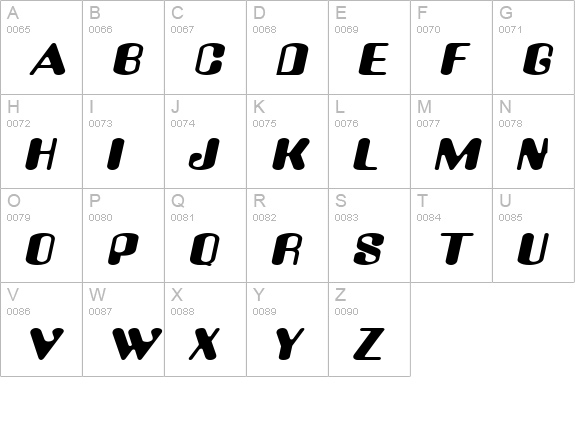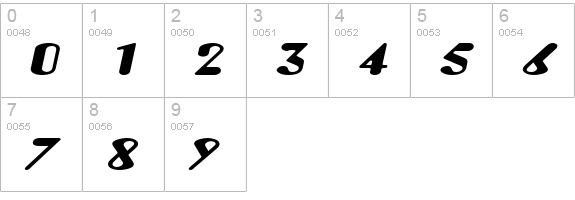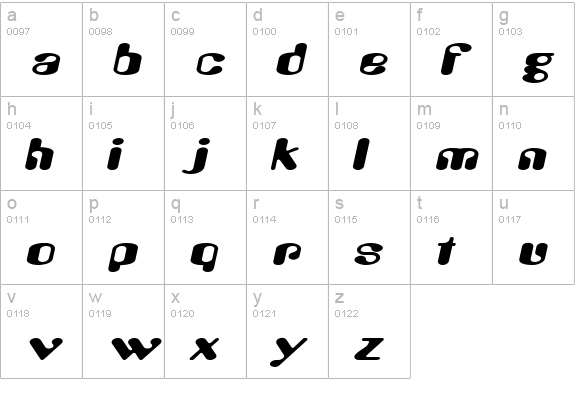
Amos Extended BoldItalic is a distinctive, extended-width variant in the Amos typeface family \xE2\x80\x94 well suited to design and typography projects.
Amos Extended BoldItalic font is a versatile and modern typeface that exudes elegance and sophistication. Its bold and italic design commands attention, making it perfect for headlines, titles, and branding materials. The sleek and stylish curves of the letters give a sense of luxury and refinement to any design project. What makes Amos Extended BoldItalic font even more appealing is that it is available for free download at FontsMarket.com. This means you can elevate your designs with this stunning font without having to worry about any additional costs. Whether you're working on a poster, website, or logo, Amos Extended BoldItalic font will bring a touch of class and professionalism to your work. Download it today and add a touch of elegance to your projects.